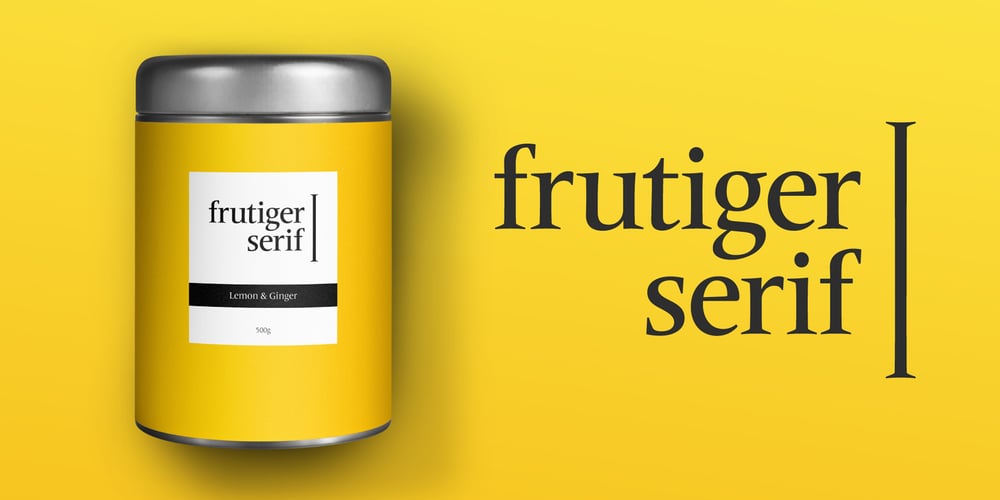
Frutiger Serif
Frutiger Serif font
Frutiger Serif Font Family was designed by Adrian Frutiger, Akira Kobayashi and published by Linotype. Frutiger Serif contains 20 styles and family package options. Frutiger® Serif is a re-envisioning of Meridien,a typeface first released by Deberny & Peignot during the 1950s. Working closely with Adrian Frutiger, Linotype’s Type Director Akira Kobayashi expanded the original metal type version of Meridien into a new digital family of 20 variants. Renamed Frutiger Serif, this up-to-date Meridien has new weights, widths, and styles that correspond better with several other of Frutiger’s designs. Just as Meridien has always been a fine choice for text settings, Frutiger Serif works brilliantly for large amounts of text & also at small point sizes. With its many weights and styles, this family is strong enough for most typographic projects. However, its added versatility is revealed when used in combination with other fonts. Frutiger Serif works well with the original Frutiger, Frutiger Next, and Univers – just to name a few. Paring these serif and sans serif families together is perfect for creating complex hierarchies and clear information design. Working with complicated typographic systems – involving elements such as headlines, captions, pull quotes, multilingual text, etc – is made easy by selecting Frutiger Serif and another of Frutiger’s sans serif families. The designer needs simply to mix and match different weights and styles for the various textual elements to create smart and innovative layouts.